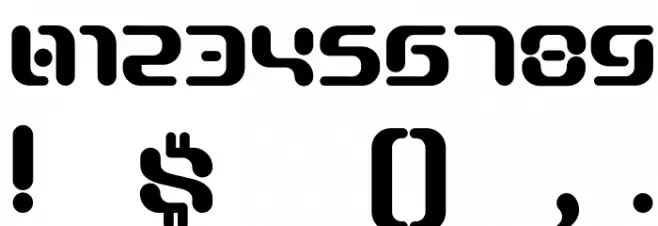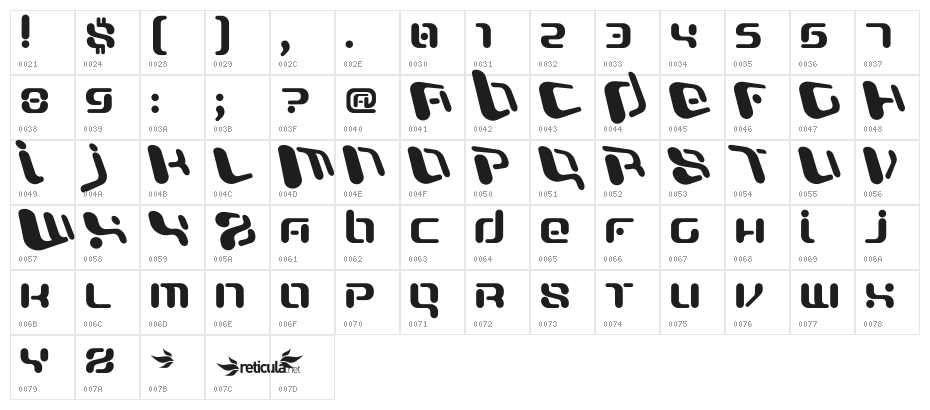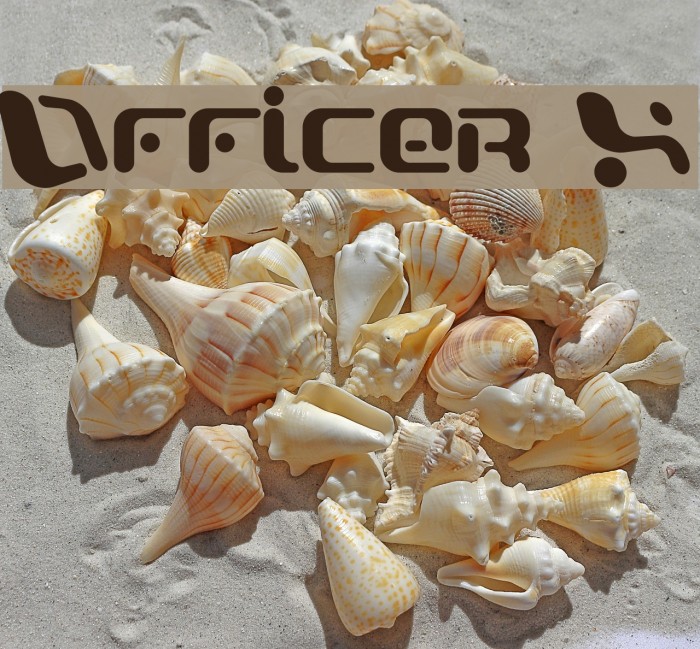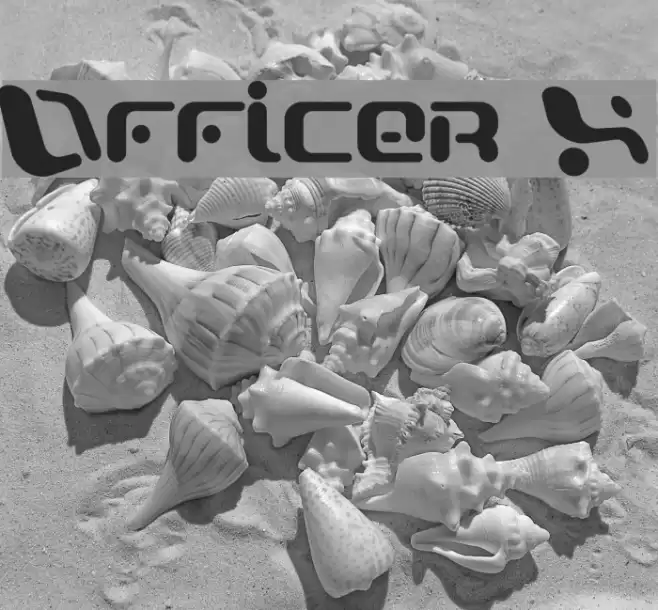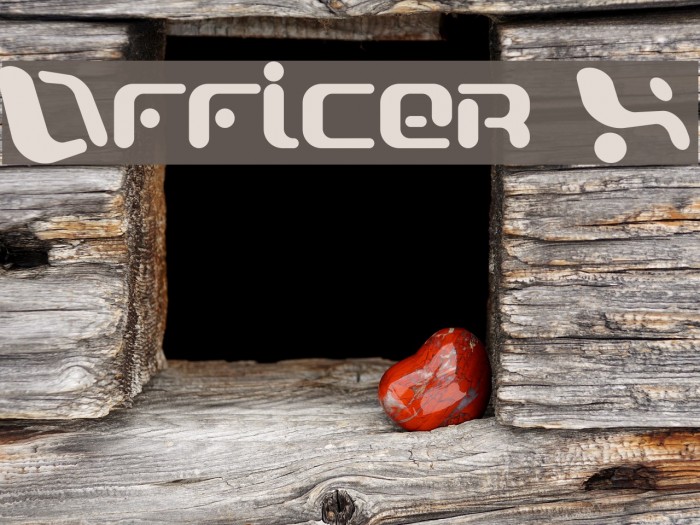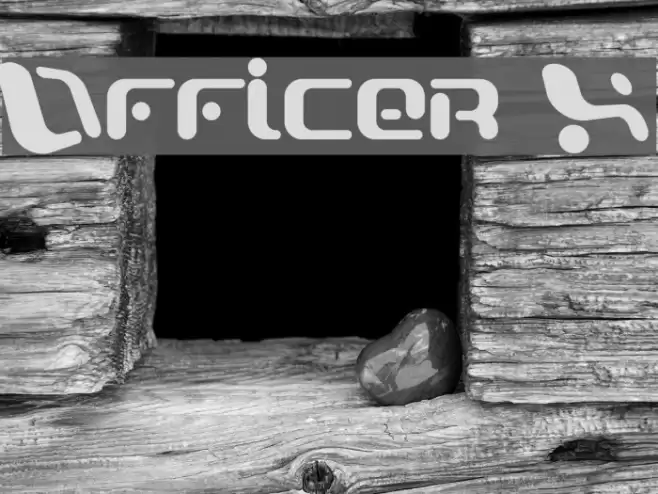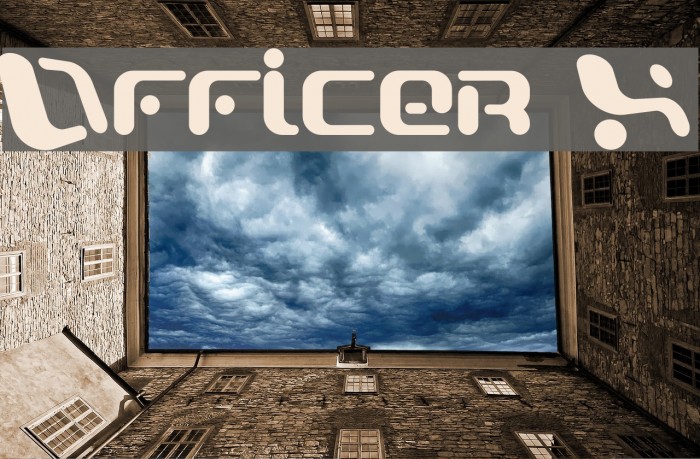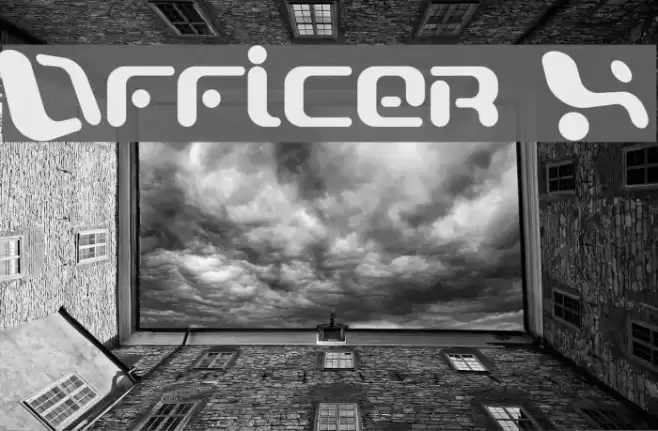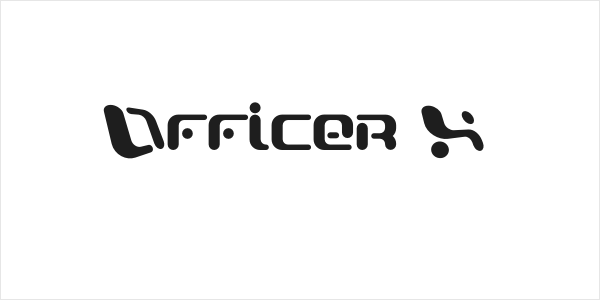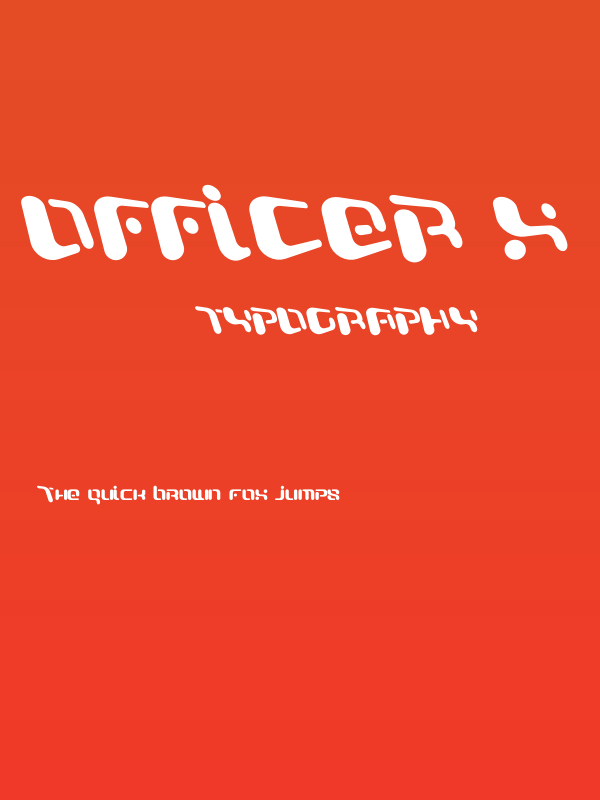
Officer X Font
Officer X Description
This font features a bold, futuristic design with a distinct stencil-like appearance. The characters are composed of thick, rounded strokes with strategic gaps, creating a sense of movement and modernity. The uppercase and lowercase letters maintain a consistent style, with the lowercase slightly smaller but equally bold. Numbers and special characters follow the same design principles, ensuring uniformity across all glyphs. The font's unique aesthetic makes it stand out, suitable for projects that require a contemporary and edgy look.
| Proposed Projects | Ideal for sci-fi themed designs, technology branding, video game titles, and modern posters. |